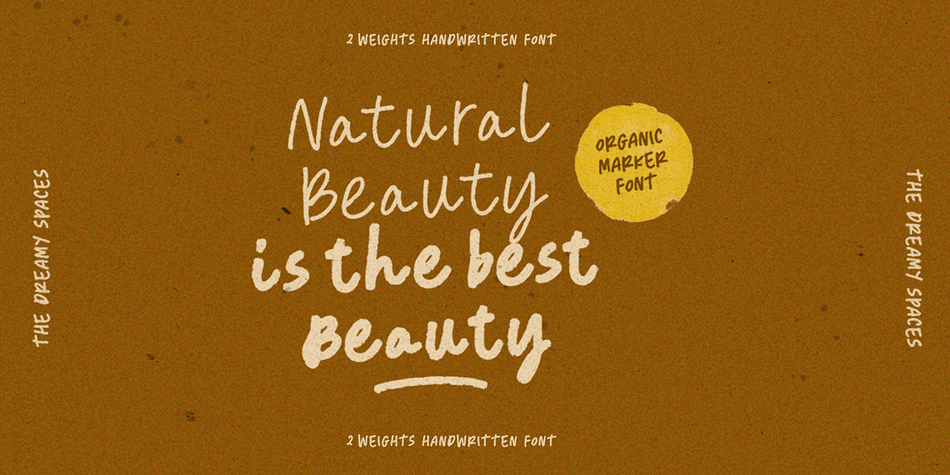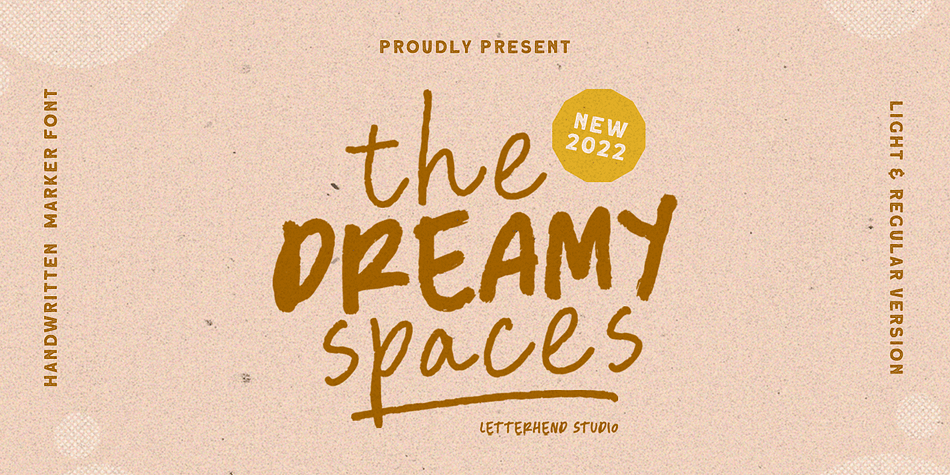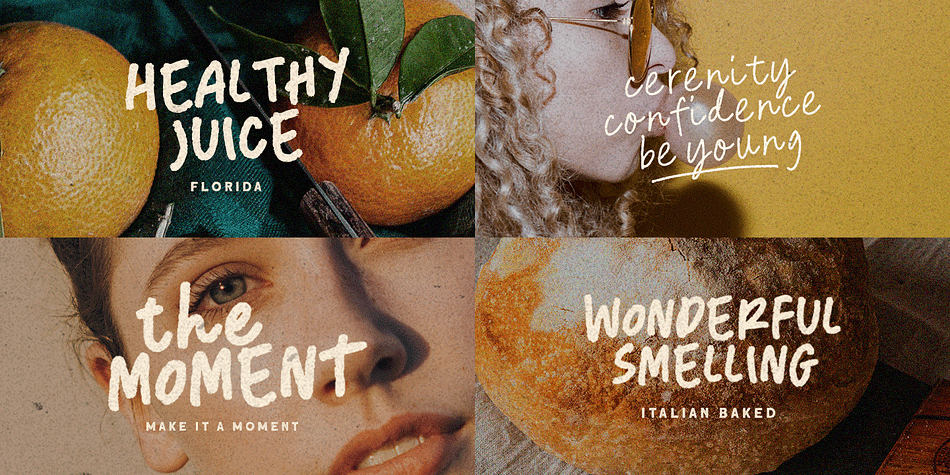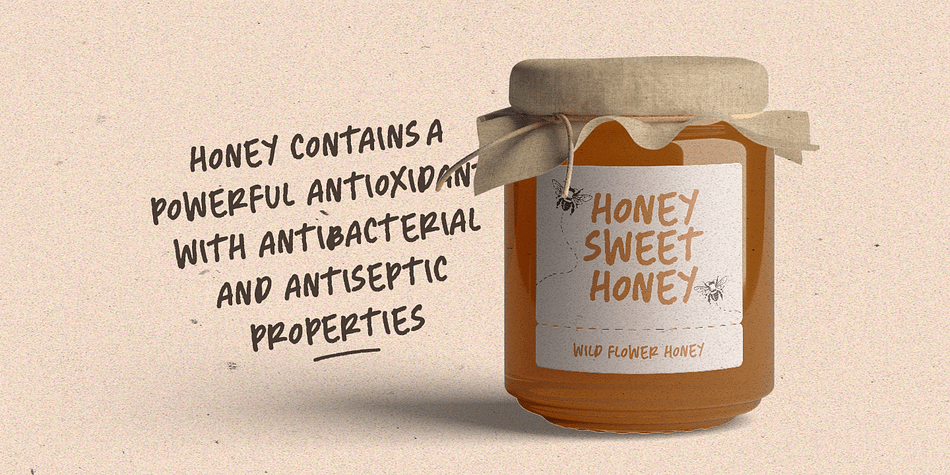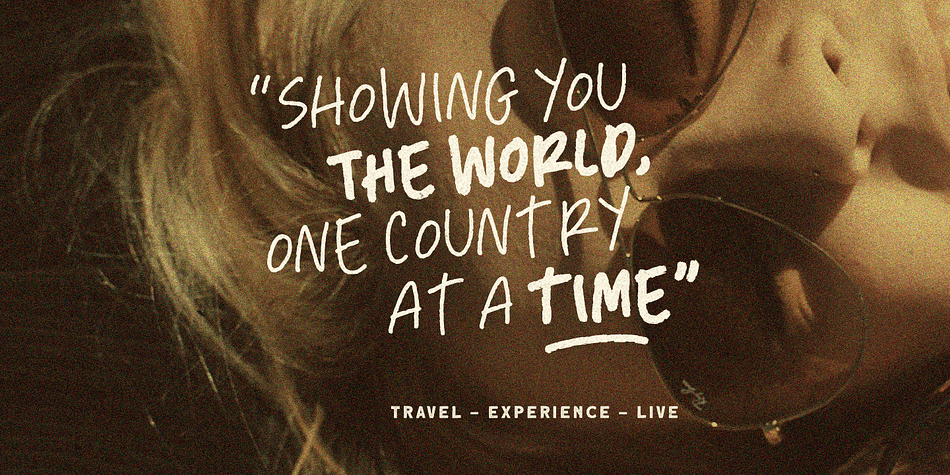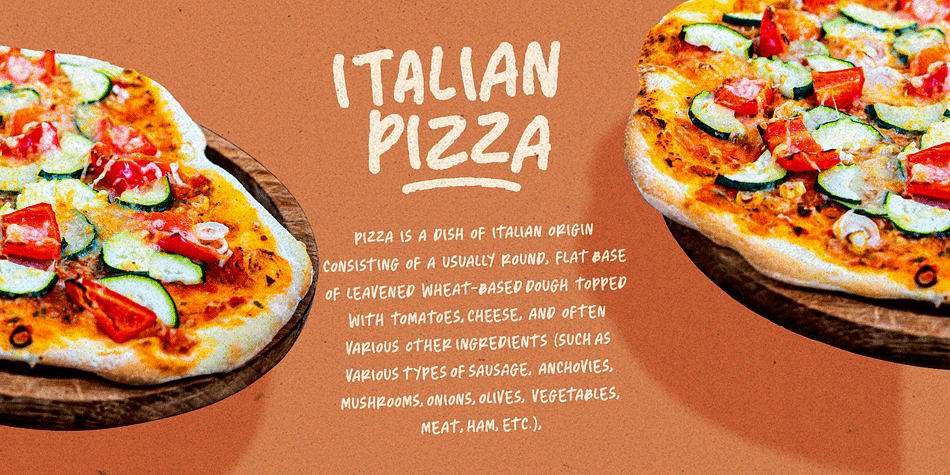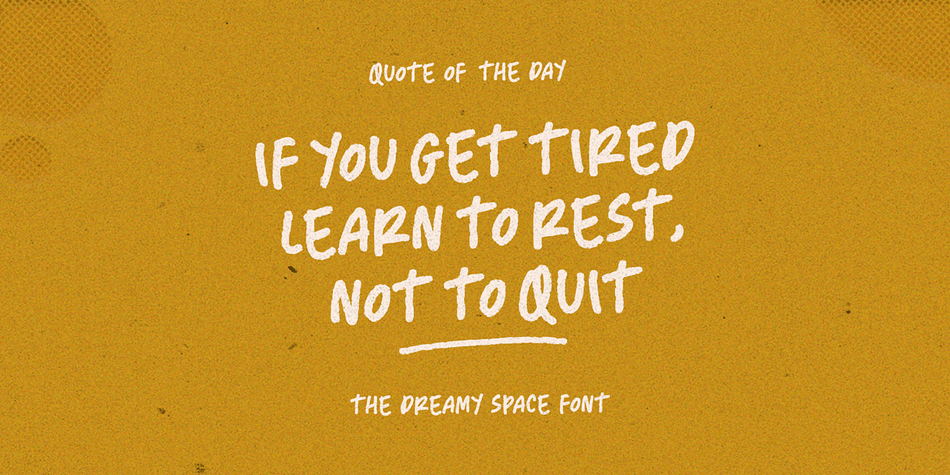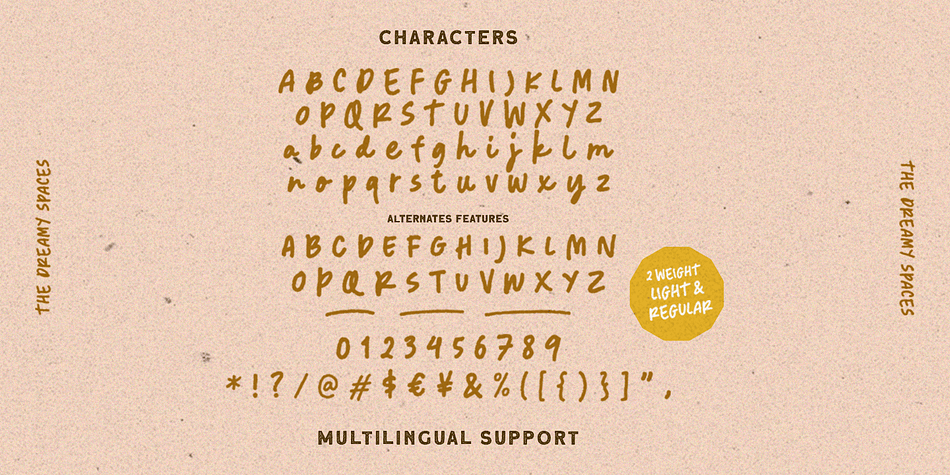
Dreamy Spaces
Designed by Hendry Juanda, Dreamy Spaces is a hand drawn font family. This typeface has two styles and was published by Letterhend Studio.
The Dreamy Spaces is a beautiful typeface based on manual hand writing. The natural flow make this font looks a real hand writing instead of typing a font. This type of font perfectly made to be applied especially in logo, and the other various formal forms such as invitations, labels, logos, magazines, books, greeting / wedding cards, packaging, fashion, make up, stationery, novels, labels or any type of advertising purpose.
- alternates and ligatures